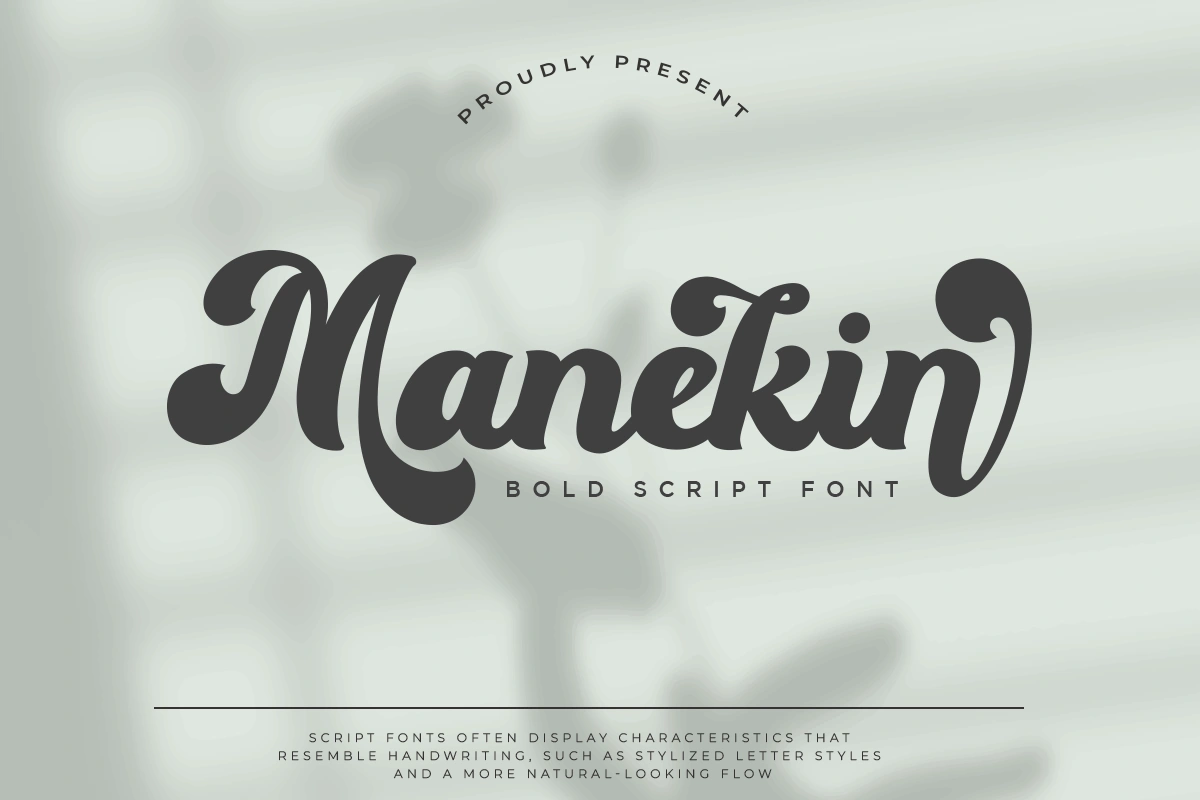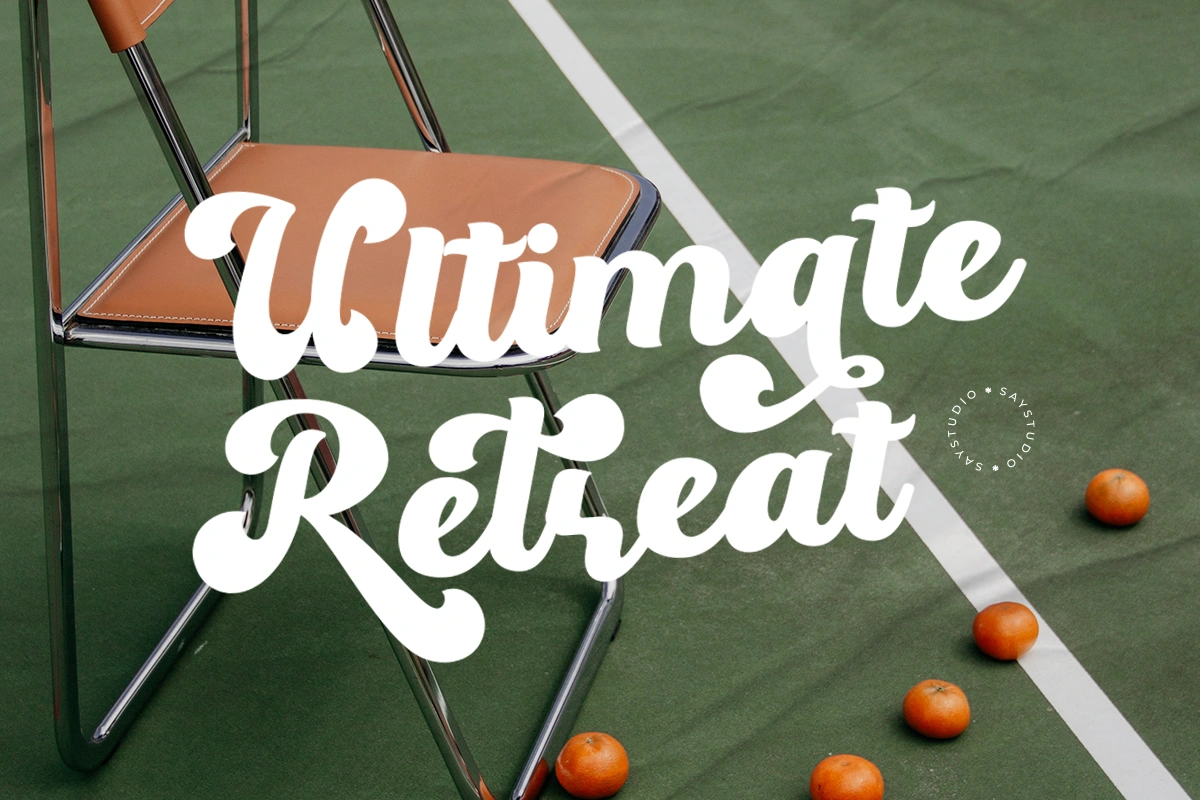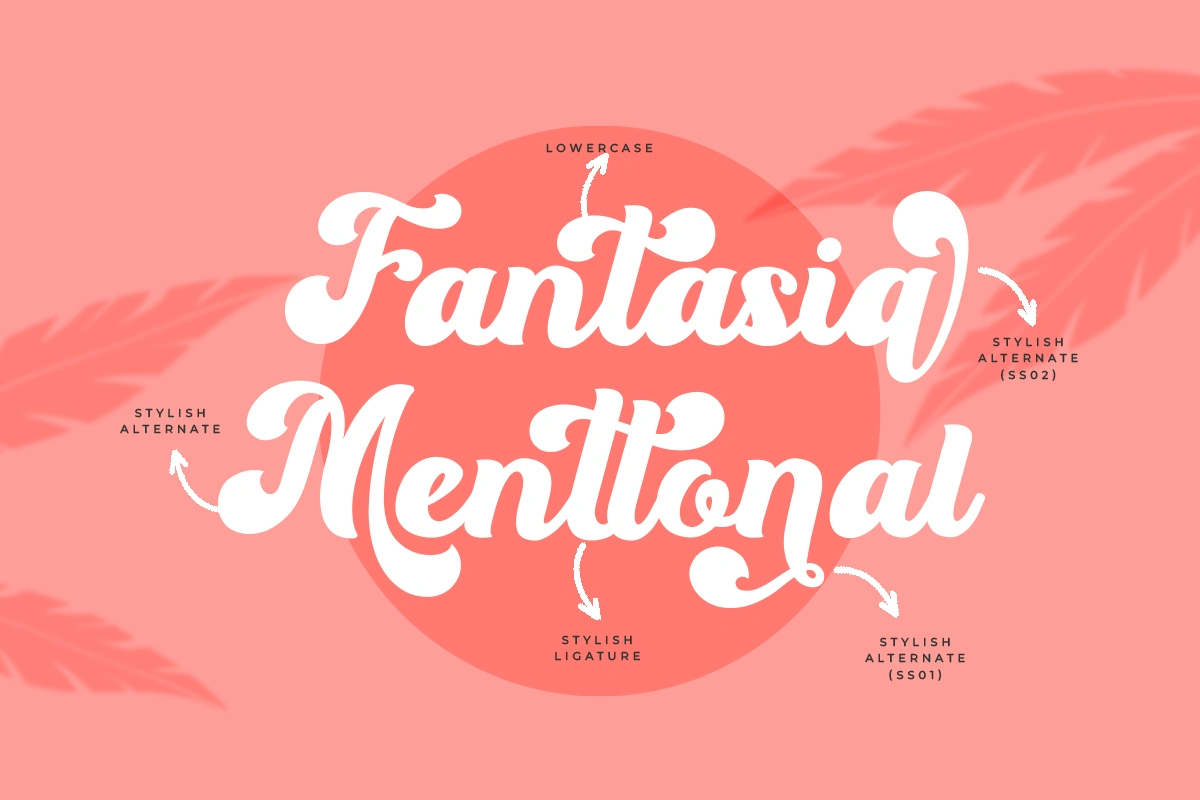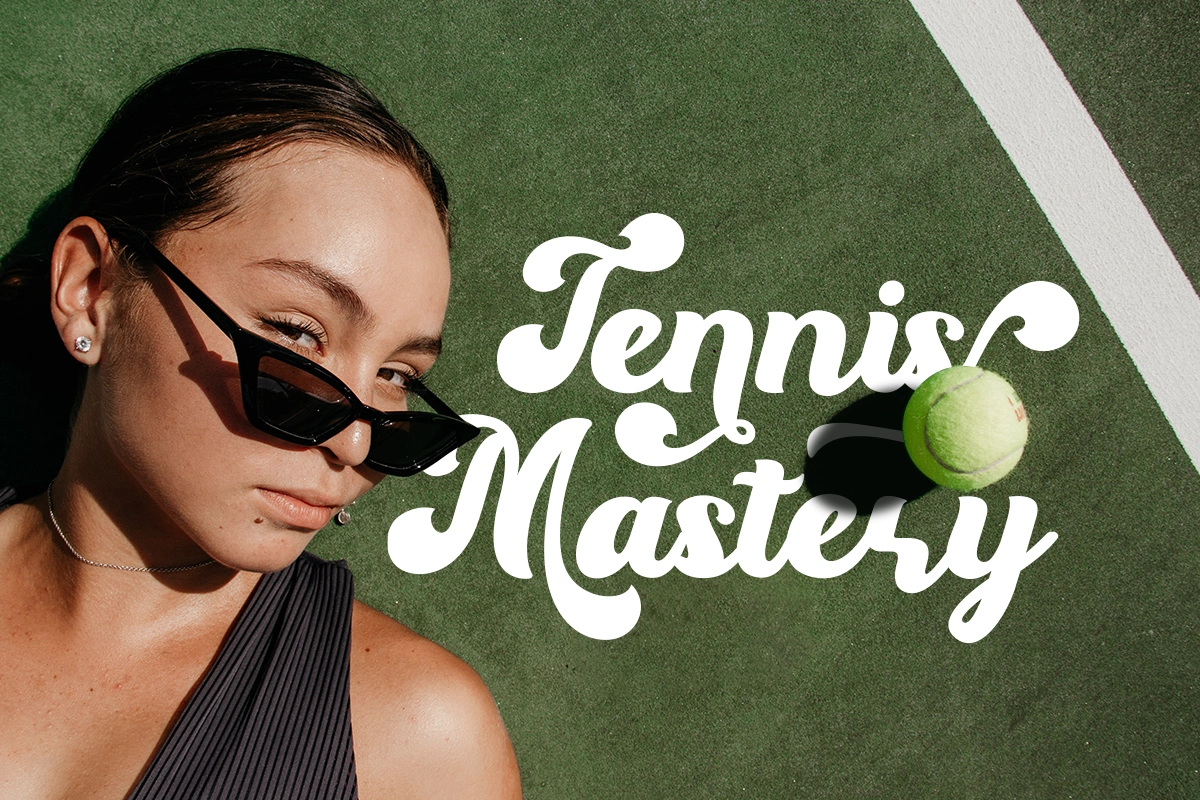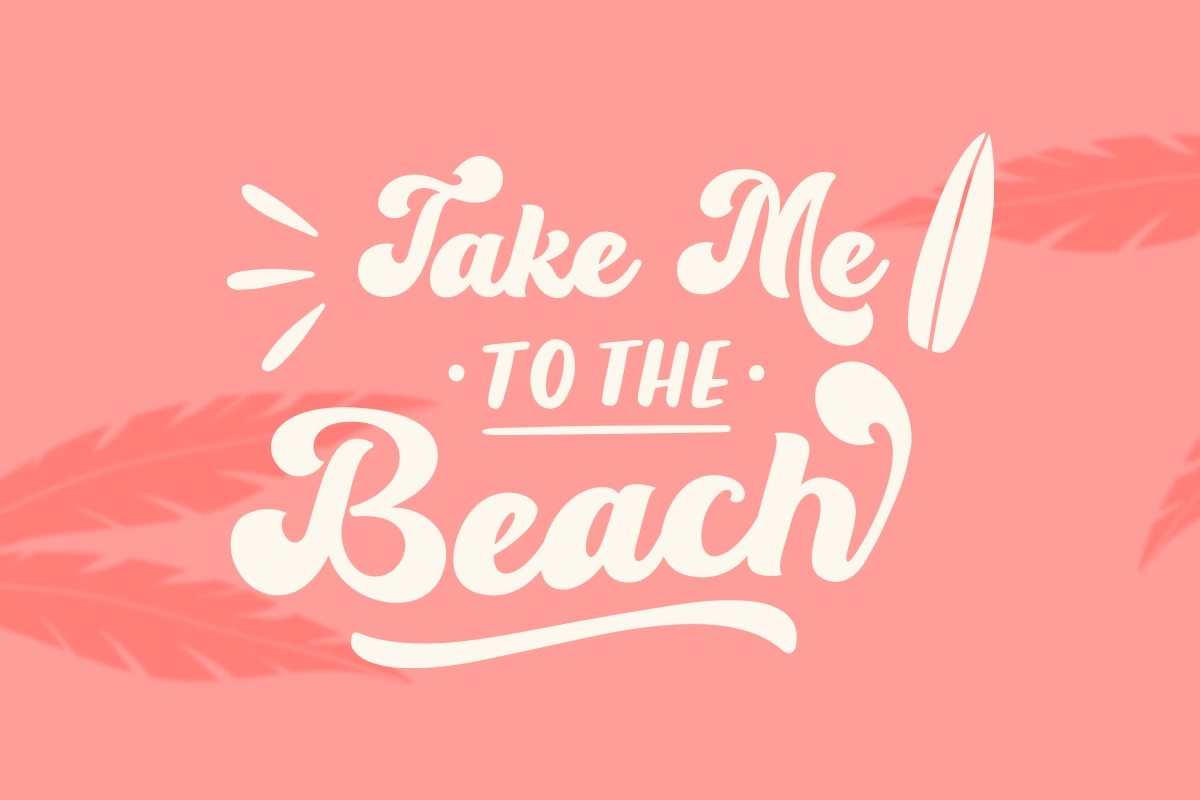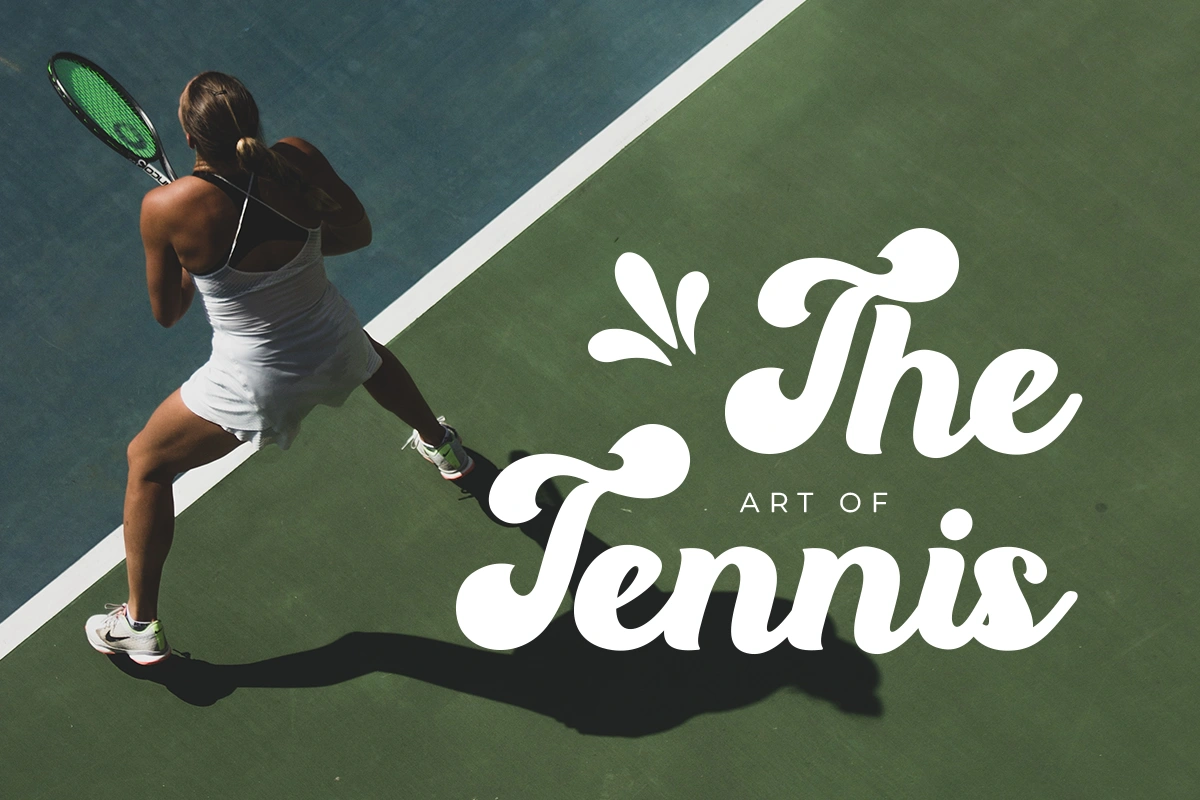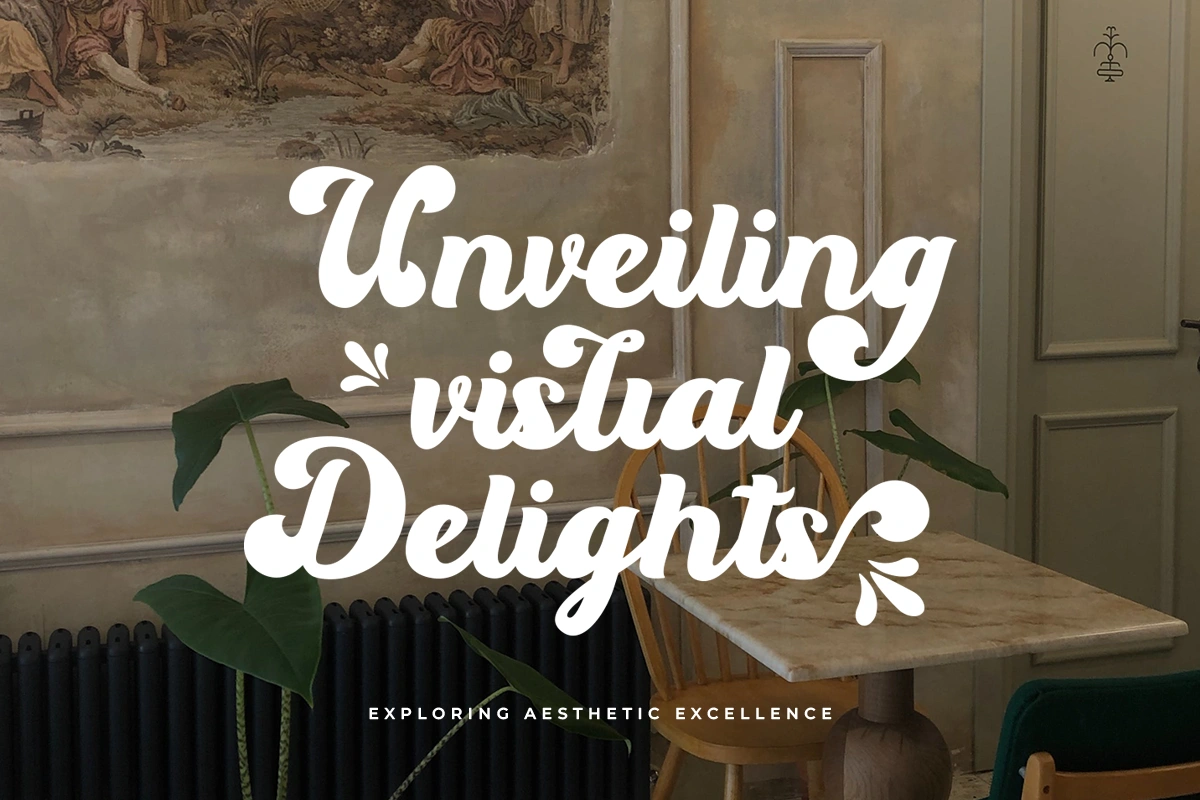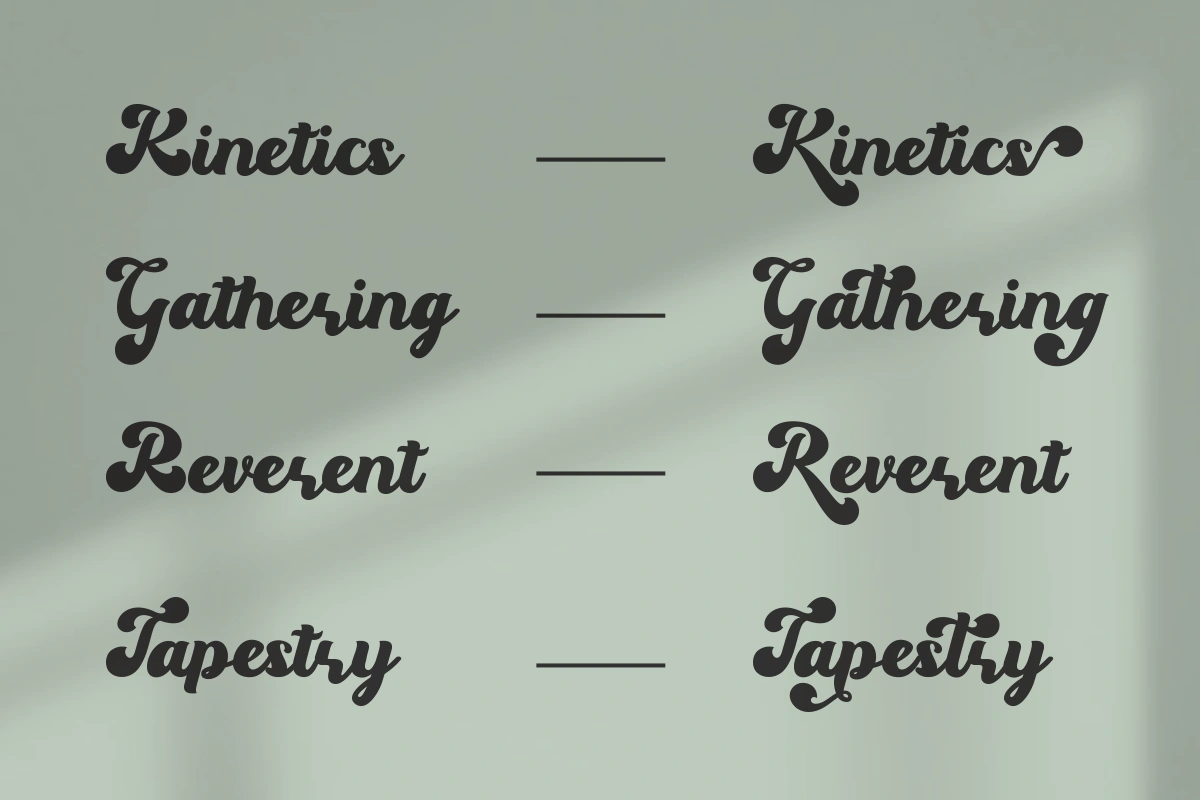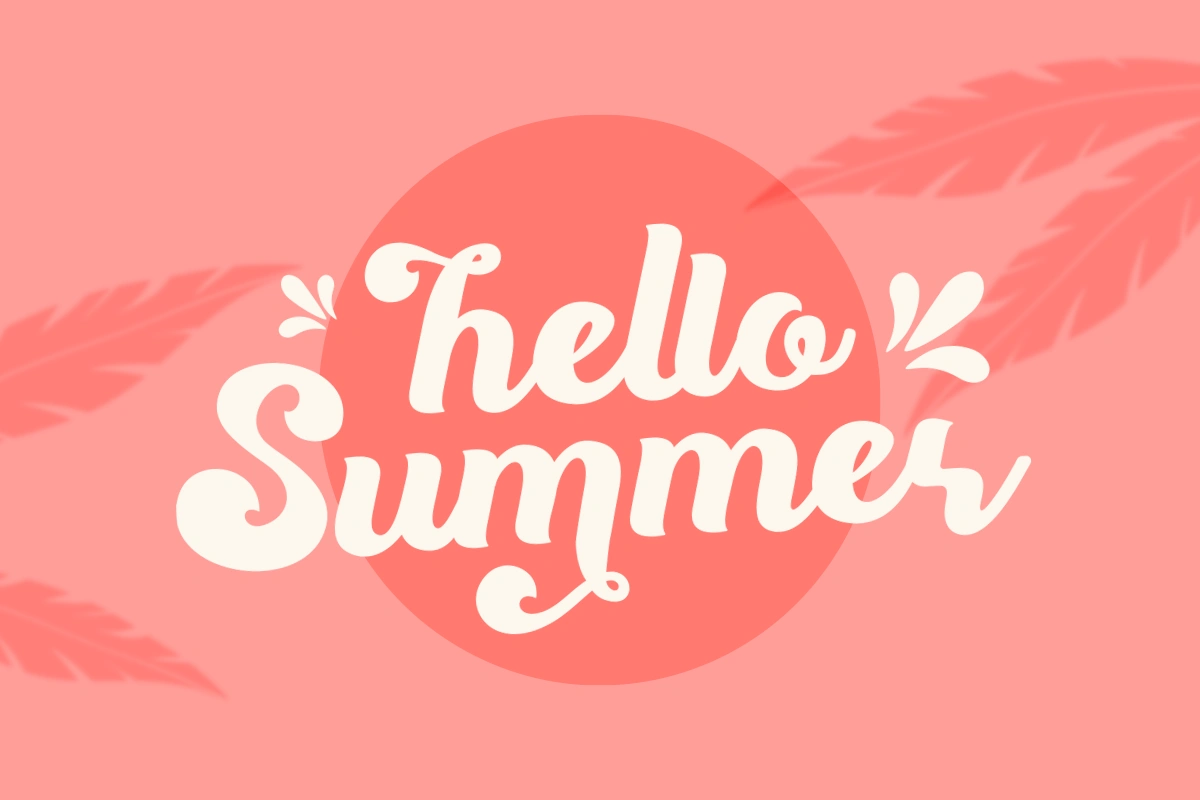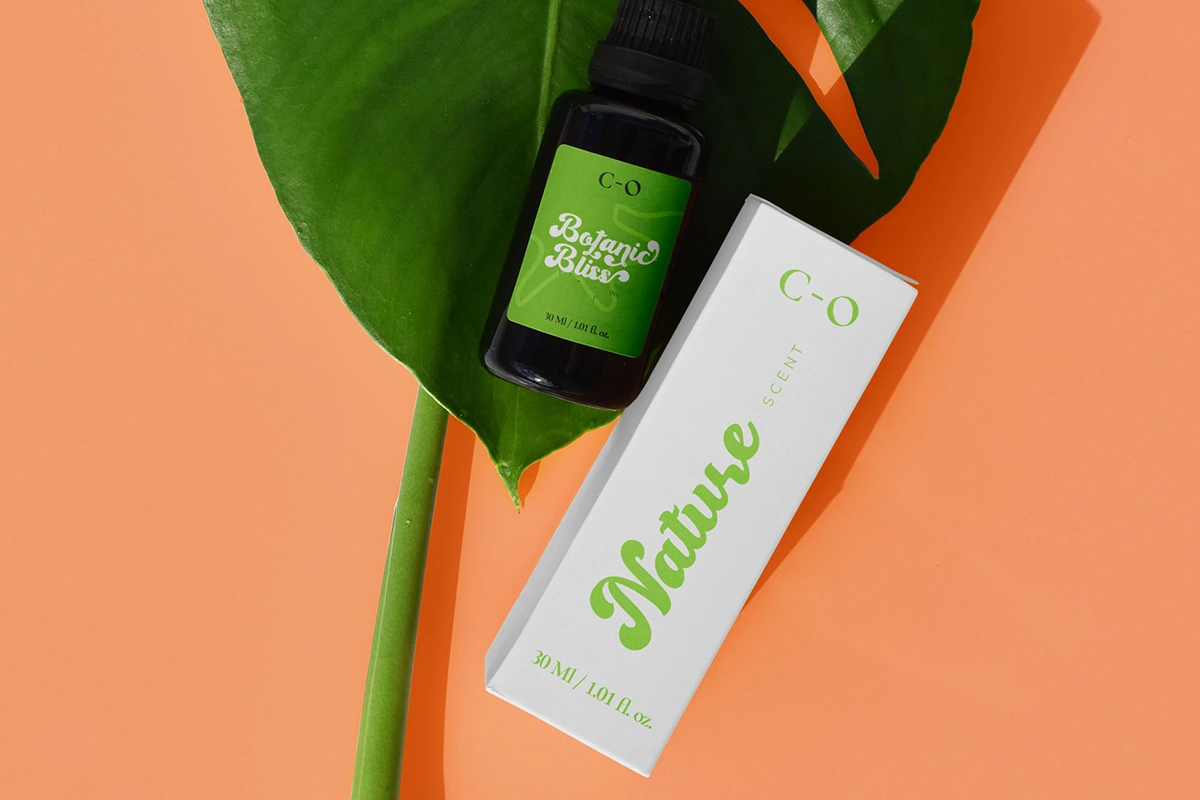
Manekin – Bold Script Font
Manekin is Bold Script Font with a beauty vintage style.This font is also equipped with 40+ stylistic Alternates and ligatures and also multi-language support which further adds to the creativity in using this font.
- 40+ stylistic Alternates & Ligatures